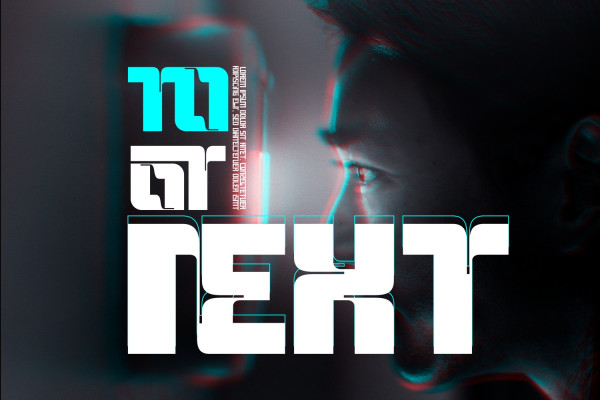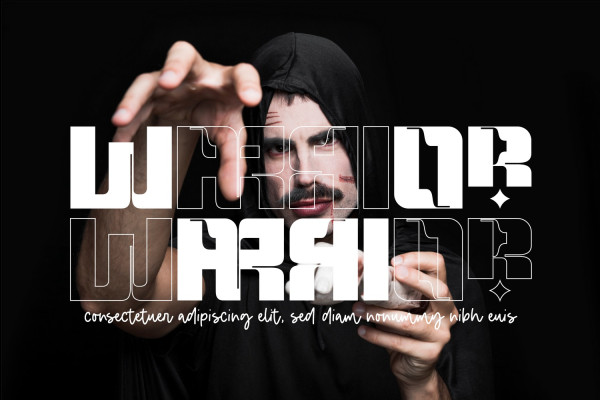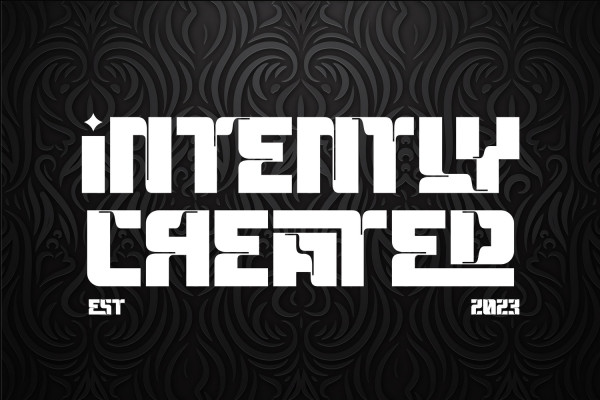
Intently Created Typeface is a modern font with a unique character. A contemporary bold condensed sans serif typeface created to breathe life into headlines with its eye-catching presence. This font attracts attention and takes any design project to a new level with its striking and fashionable look. This font, well-suited for headline and any project, like branding, print template, logo and more.
Intently Created Typeface was built with OpenType features and includes 100 ligatures, alternate, numbers, punctuation, and it also supports other languages.
AC AD AL AN AR AS AT AU AV BE CA CE CH CO CT DE DI EA EC ED EE EL EM EN EP ER ES ET FE FO FR GE HA HE HI HO IE IC IL IN IO IR IS IT JU KE LA LE LI LL LO LY MA ME MI NC ND NE NG NO NT NS OC OF OM ON OO OP OR OT OU OW PA PR RA RD RE RI RO RS RT SE SH SI SO SS ST TA TE TH TI TO TR TT UM UN UR VE WI WO